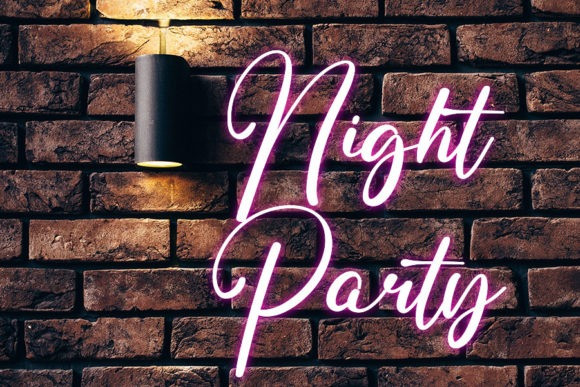
Staring Font
Staring Script Font is a stylish and incredibly elegant script font. It looks stunning on wedding invitations, thank you cards, quotes, greeting cards, logos, business cards and every other design which needs a handwritten touch.